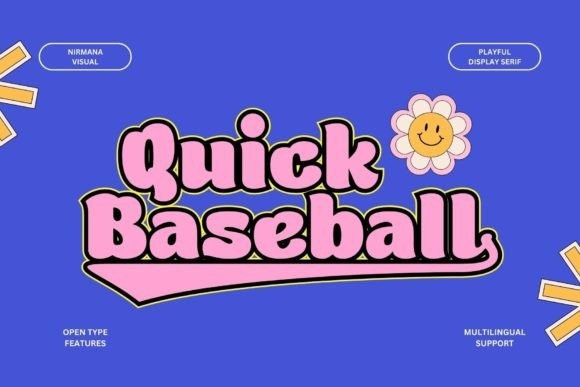
Quick Baseball Font
Quick Baseball Display Font is a bold and eye-catching display font that is perfect for titles, logos, and headlines. It features a unique style with sharp, angled lines and a mix of curved and straight edges. It stands out from the crowd and makes a statement.